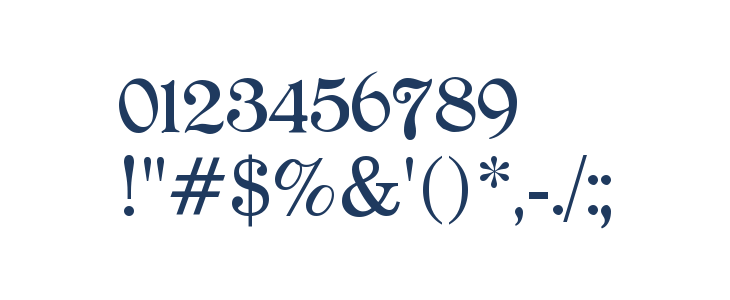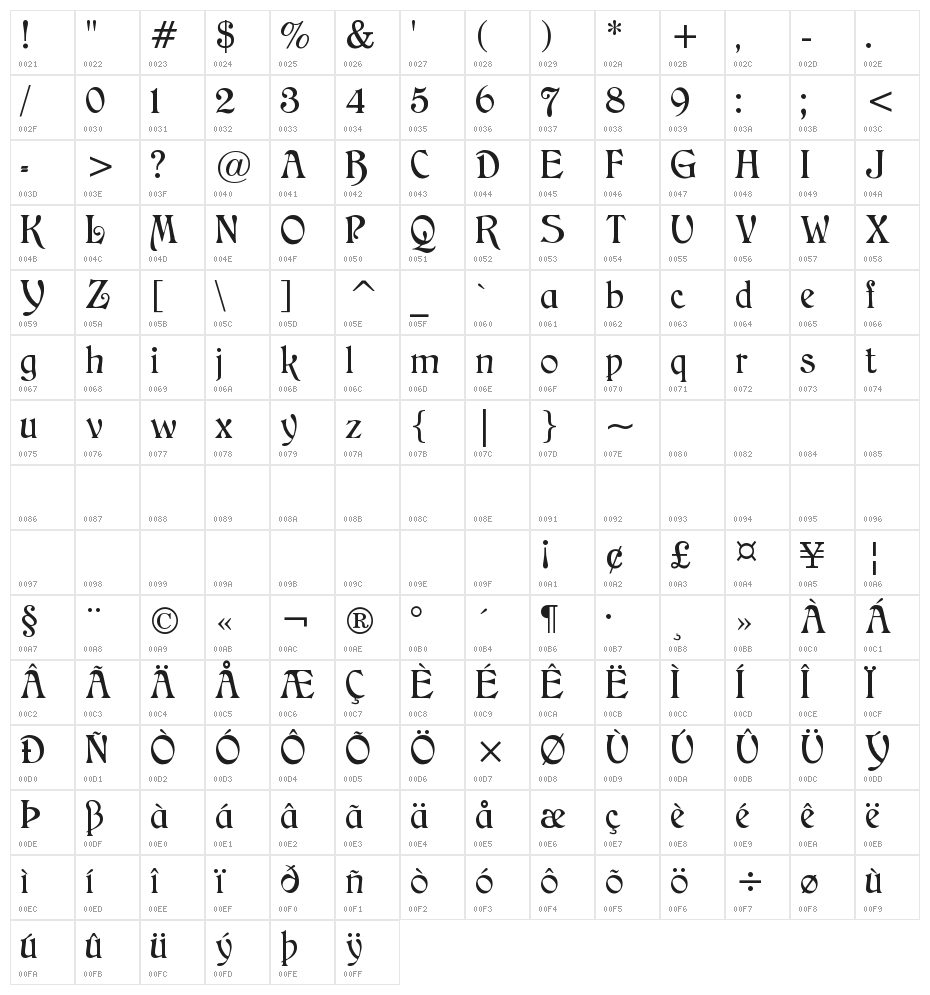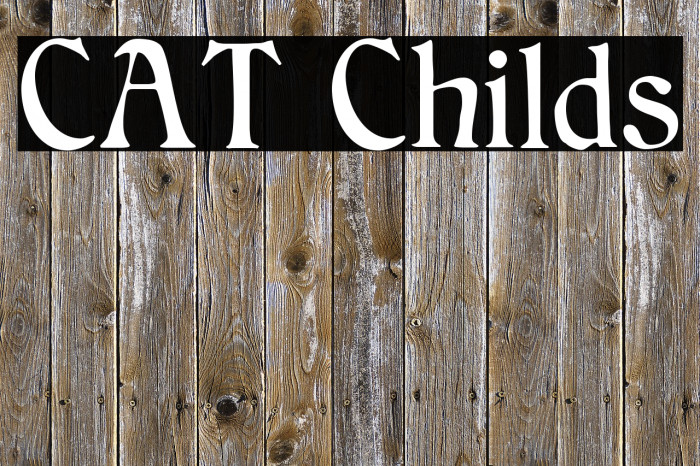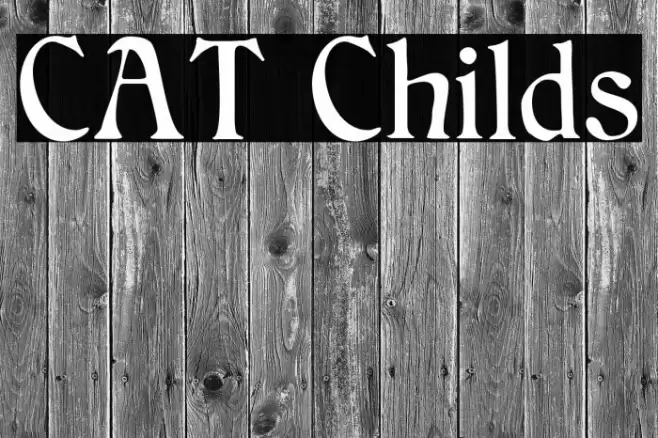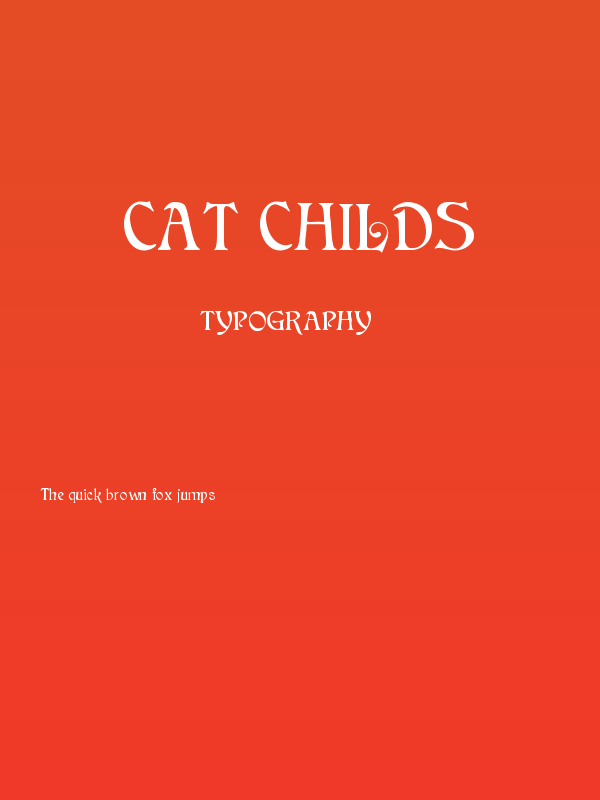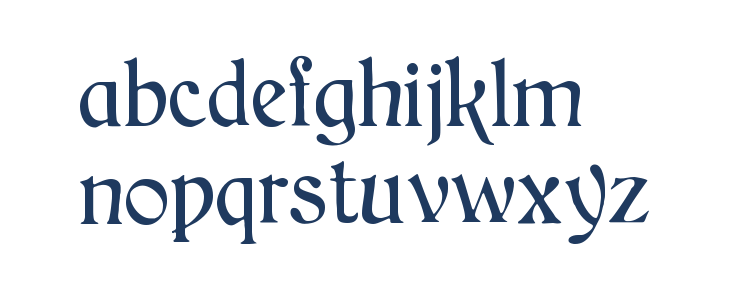
CAT Childs Font
CAT Childs Description
This font features a whimsical and playful design with a distinct medieval flair. The uppercase letters are characterized by unique curves and flourishes, giving them an ornamental appearance. The lowercase letters maintain a consistent style, with some characters having exaggerated ascenders and descenders, adding to the font's decorative nature. The numerals are bold and rounded, complementing the overall style. Special characters are creatively designed, enhancing the font's artistic appeal. This font is ideal for projects that require a touch of fantasy or historical elegance.
| Proposed Projects | Ideal for fantasy book covers, themed event invitations, historical posters, and creative branding. |